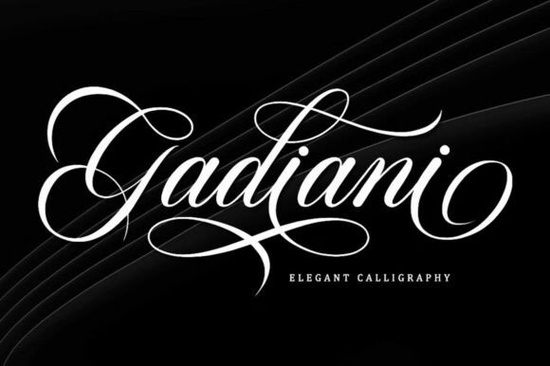
If you’ve been searching for a handwritten font that feels personal, polished, and just a little bit playful, the Gadiani Font might be exactly what your next project needs. It’s clean without being stiff, elegant without feeling formal perfect for anyone making invitations, branding materials, or even small-batch product labels. Whether you’re designing for yourself or a client, Gadiani gives you room to add charm without clutter.
What makes this font especially handy is how many variations it includes. You get uppercase and lowercase letters, of course, but also stylistic alternatives, ligatures for smoother connections between characters, punctuation, numbers, and support for multiple languages. That means whether you’re labeling jam jars for a farmers market or creating wedding invites for a friend, you can tweak the look to match the mood sweet and girly, minimal and modern, or somewhere in between.
Who actually uses fonts like this?
It’s not just graphic designers. Think about:
- Small business owners who want their logo or packaging to feel handmade and warm.
- Crafters and Etsy sellers creating printable cards, planner stickers, or vinyl decals.
- Print-on-demand creators uploading designs to sites like Redbubble or Zazzle.
- Hobbyists making birthday banners, baby shower thank-yous, or classroom decor.
If you’ve ever used something like The Cute Handwriting Bundle or Swift Marker, you’ll find Gadiani fits right into that same toolkit friendly, flexible, and easy to pair with other script fonts like Angela or Handmade With Love.
How do I know if this font will work for my project?
Ask yourself: Do I need something that reads as personal? Is “handwritten” part of the vibe I’m going for? If yes, Gadiani delivers. The letterforms have subtle bounce and variation enough to feel human, not robotic but they’re still legible at smaller sizes. That’s rare in script fonts, which often sacrifice readability for style.
Try it on:
- Wedding or baby shower invitations
- Logo mockups for bakeries, boutiques, or beauty brands
- Social media quote graphics
- Product tags or packaging labels
- Thank-you cards or gift tags
The alternates and ligatures let you avoid repetitive letter combinations. For example, if you’re writing “coffee,” you can swap out one “e” for a slightly different shape so it doesn’t look copy-pasted. Little details like that make a big difference when you’re trying to create something that feels custom.
What if I want to mix it with other fonts?
Gadiani plays well with others. Try pairing it with a simple sans-serif for contrast think Montserrat, Lato, or even Arial if you’re keeping it basic. The key is letting Gadiani be the accent, not the whole sentence. Use it for names, headlines, or short phrases, and let a cleaner font handle body text.
You could also layer it with bolder scripts. For instance, use Angela for a dramatic headline and Gadiani underneath for a softer subhead. Or combine it with Swift Marker if you’re going for a casual, marker-drawn look.
Any common mistakes to avoid?
A few small things:
- Don’t overuse the alternates. Pick one or two per word max, or it starts to look messy.
- Avoid tiny sizes. Below 10pt, some of the finer strokes might disappear in print.
- Check kerning manually. Script fonts sometimes need a little nudging between letters to look balanced.
And if you’re printing on textured paper or fabric, do a test print first. Delicate fonts can get lost on busy backgrounds.
Where else can I find fonts like this?
If you like Gadiani’s vibe but want more options, browse the Script Fonts section on Creative Fabrica. You’ll find similar styles under collections like The Cute Handwriting Bundle or standalone picks like Handmade With Love. Each has its own personality some are bouncier, some are smoother but they all share that approachable, hand-lettered feel.